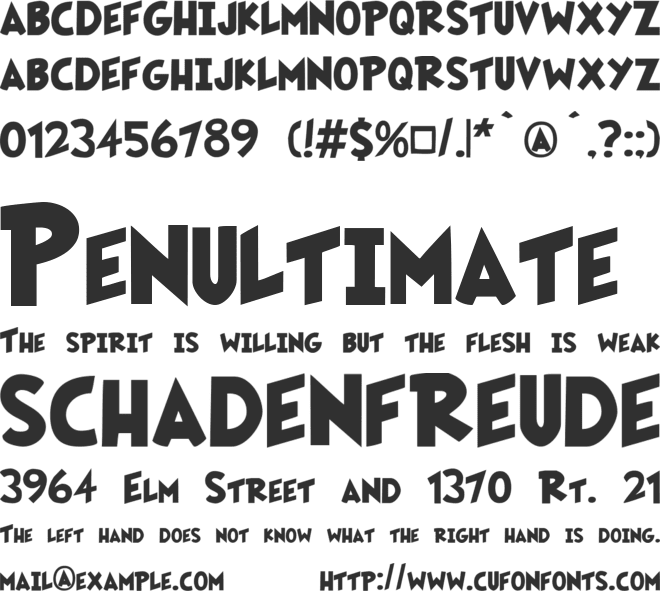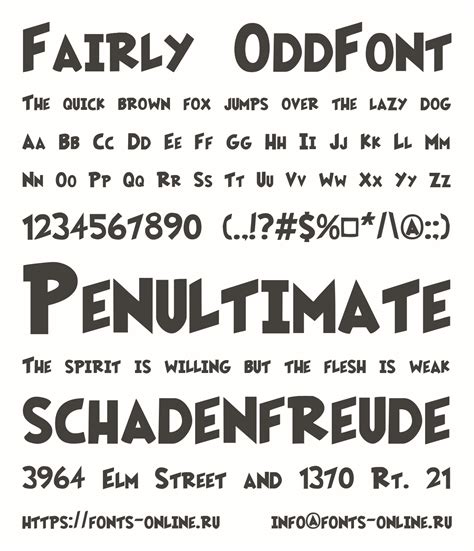
Fairly Odd Font
Fairly Odd Font - Votes, rated based on results identification. A work by a fan. Web a font made based on a font used on the latest season title cards of the cartoon fairly oddparents.